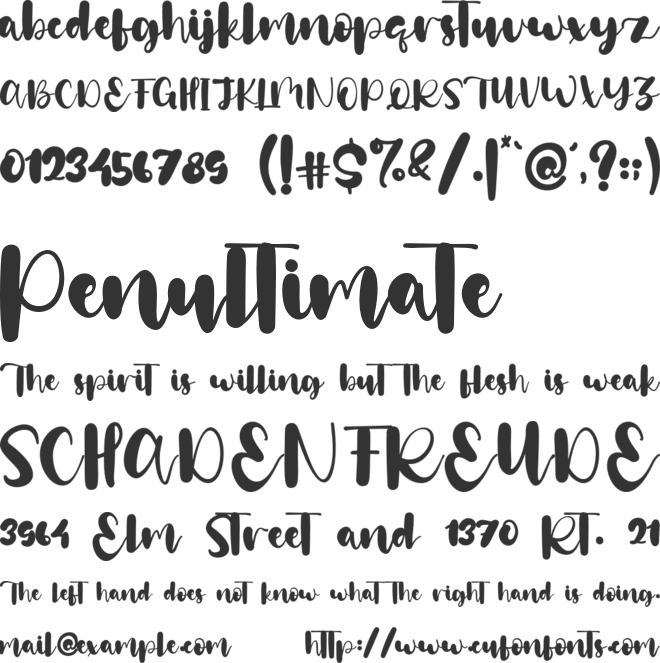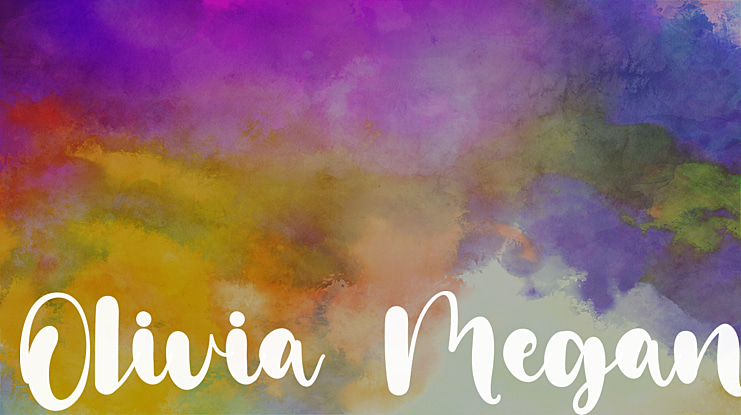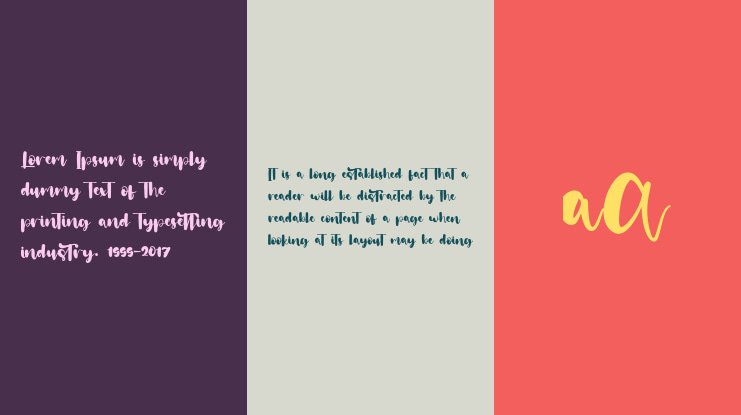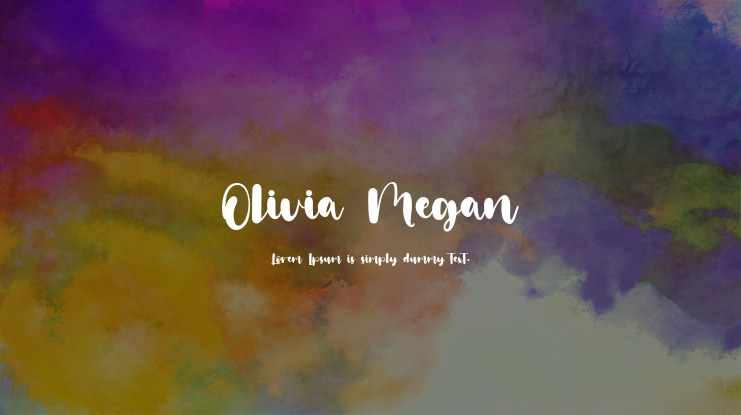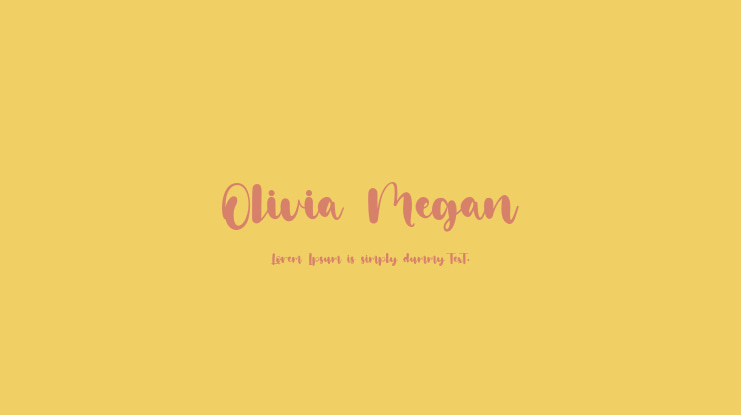
Olivia Megan Font
Staircase Studio
Olivia Megan A New Bold Signature Font, A collection of letters and numbers suitable your projects also great for Logotype, Branding Design, Logo Design, Digital Lettering Arts, T-Shirt/Apparel, Poster, Magazine, Signs, Advertising Design, and any design needs.Click our website :https://staircaselab.com/product/olivia-megan/